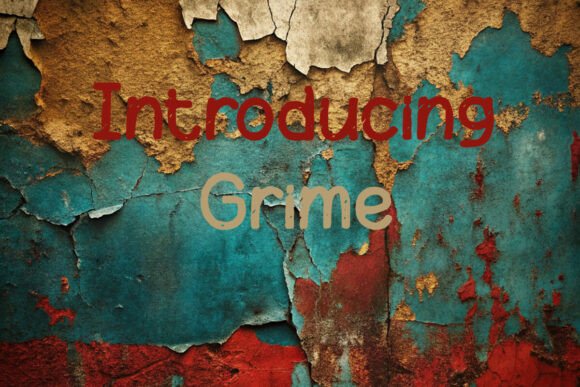
Introducing Grime: The Edgy Font for Creative Endeavors
In the world of typography, fonts play a crucial role in conveying messages, expressing personalities, and setting the tone for creative projects. If you’re a designer, crafter, or simply a creative enthusiast, you’re likely always on the lookout for a font that can add a unique touch to your work. That’s where Grime comes in – a font that boasts a distinctive style, perfect for a diverse range of creative endeavors.
The Versatility of Grime Font
Grime is more than just a font – it’s a versatile design element that can elevate your projects to new heights. Its adaptability makes it an excellent choice for various applications, from t-shirts and branding projects to magazine pages and social media graphics. Whether you’re working on a commercial project or a personal craft, Grime seamlessly integrates into your design, adding an edge that’s sure to capture attention.
Applications of Grime Font
- T-Shirts and Apparel: Add a bold statement to your designs with Grime. Its unique style ensures that your t-shirts, hoodies, and other apparel stand out from the crowd.
- Branding Projects: Establish a strong brand identity with Grime. Its distinctive look can be used across various platforms, from logos and business cards to website headers and social media profiles.
- Magazine Pages: Bring personality to glossy magazine pages with Grime. Its edgy style is perfect for article titles, headings, and quotes, adding a touch of sophistication to your publication.
- Greeting Cards: Create personalized greeting cards with Grime. Add a touch of elegance and whimsy to your designs, making them perfect for special occasions.
- Posters: Make a statement with Grime on your posters. Its bold and eye-catching style ensures that your message is conveyed effectively, whether it’s for an event, promotion, or awareness campaign.
- Social Media Graphics: Elevate your social media presence with Grime. Use it to create engaging graphics, quotes, and posts that reflect your brand’s personality and style.
Why Choose Grime Font?
So, what sets Grime apart from other fonts? Here are a few reasons why Grime is an excellent choice for designers and crafters:
- Unique Style: Grime boasts a distinctive style that’s both edgy and sophisticated. Its unique design ensures that your projects stand out from the crowd.
- Versatility: Grime is incredibly versatile, making it suitable for a wide range of applications, from commercial projects to personal crafts.
- Adaptability: Grime seamlessly integrates into various design elements, including SVG files, Cricut projects, and social media graphics.
In conclusion, Grime is a font that can elevate your creative projects to new heights. Its unique style, versatility, and adaptability make it an excellent choice for designers, crafters, and creative enthusiasts. Whether you’re working on a commercial project or a personal craft, Grime is sure to add an edge that’s sure to capture attention. So, why not give Grime a try? Embrace the Grime font and let it take your creative endeavors to a whole new level of sophistication.